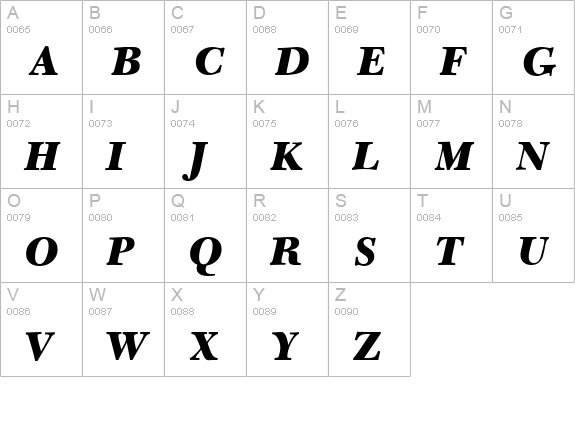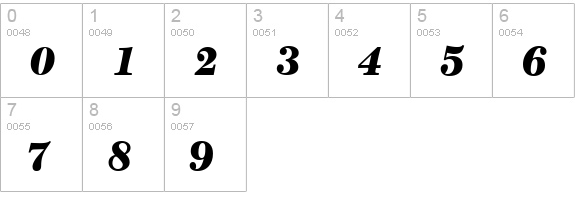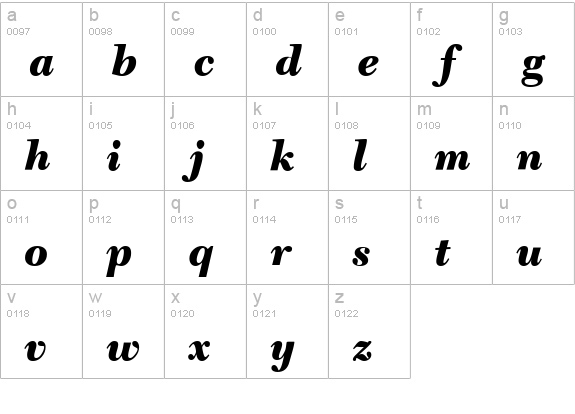
C651-Roman-Black-Italic Font Details
C651-Roman-Black-Italic is a maximum-weight, dramatic, italic variant in the C651 typeface family \xE2\x80\x94 well suited to maximum-impact headlines, posters, and packaging.
C651-Roman-Black-Italic is a sophisticated and elegant font that exudes a classic charm with a modern twist. Its sleek and stylish design makes it perfect for adding a touch of sophistication to any project. The italicized slant of the letters adds a sense of dynamic movement and flair, making this font stand out from the rest. This versatile font is ideal for a wide range of design projects, from branding and marketing materials to invitations and signage. Its bold and striking appearance commands attention, while its smooth curves and intricate details give it a refined and polished look. Best of all, C651-Roman-Black-Italic is available for free download at FontsMarket.com. This means you can easily access and use this stunning font in your projects without any cost. So why wait? Add a touch of elegance and style to your designs with C651-Roman-Black-Italic today!